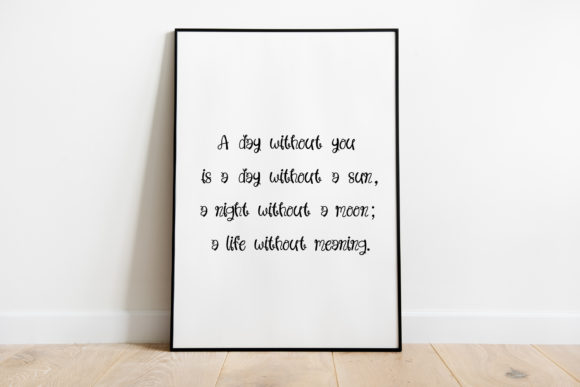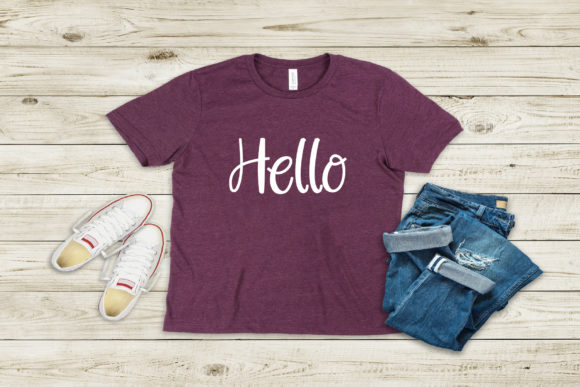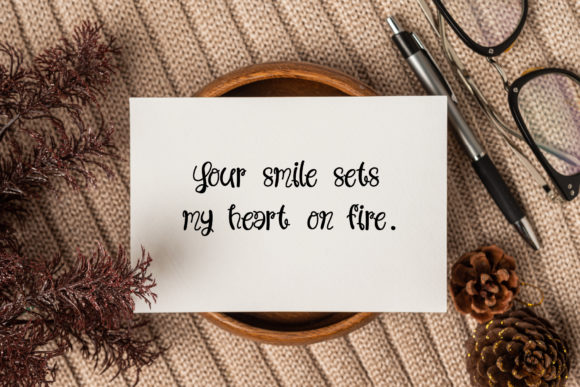
Introduction to Grinning Font
Grinning is a romantic and whimsical script font.
Whether you’re using it for crafting, digital designing, presentations or greeting cards making, it’s perfect .
Grinning Font offers exceptional quality and versatility, making it a valuable addition to your design toolkit. Whether you’re creating for personal projects or commercial use, Grinning Font delivers professional results.